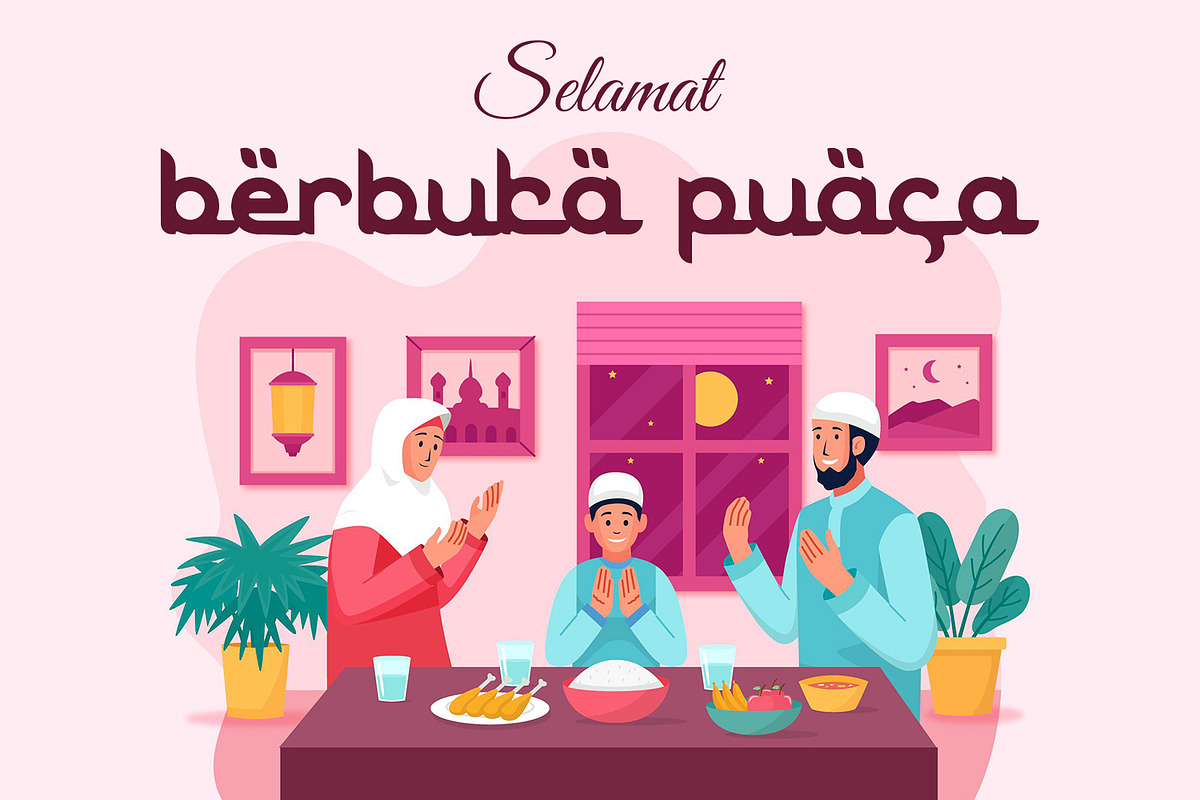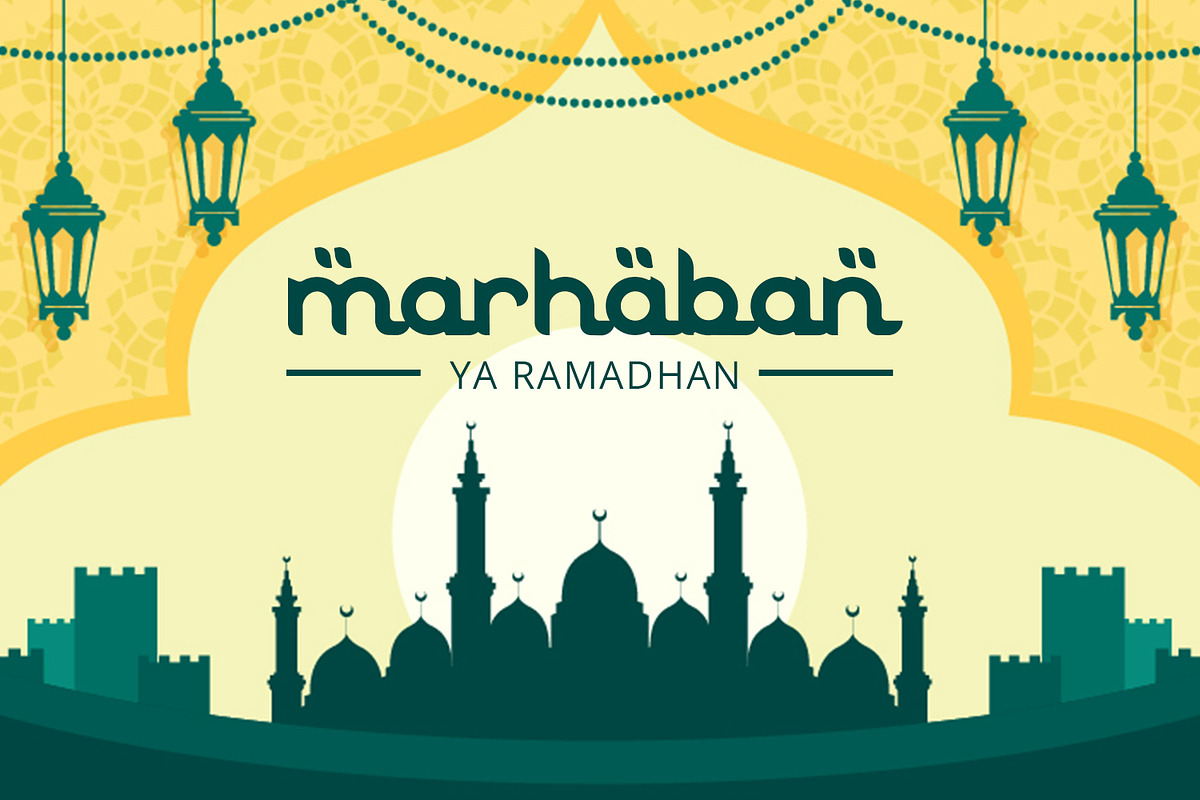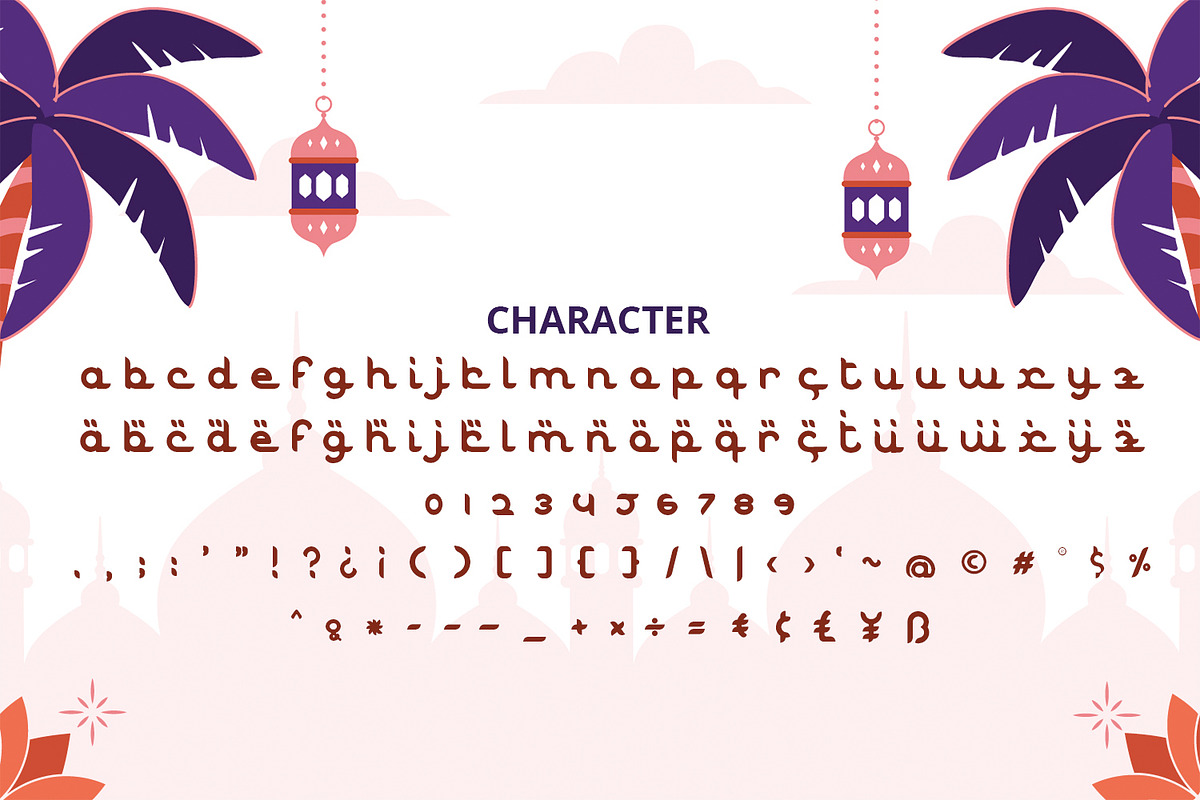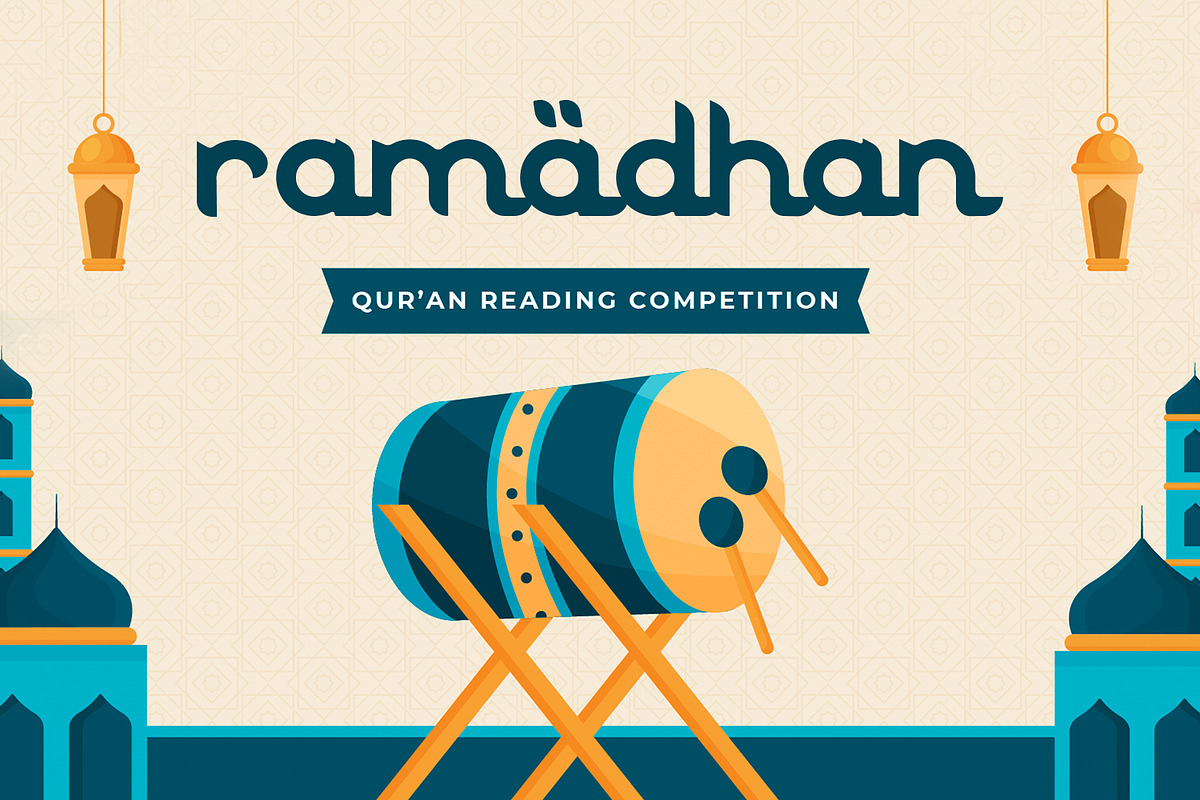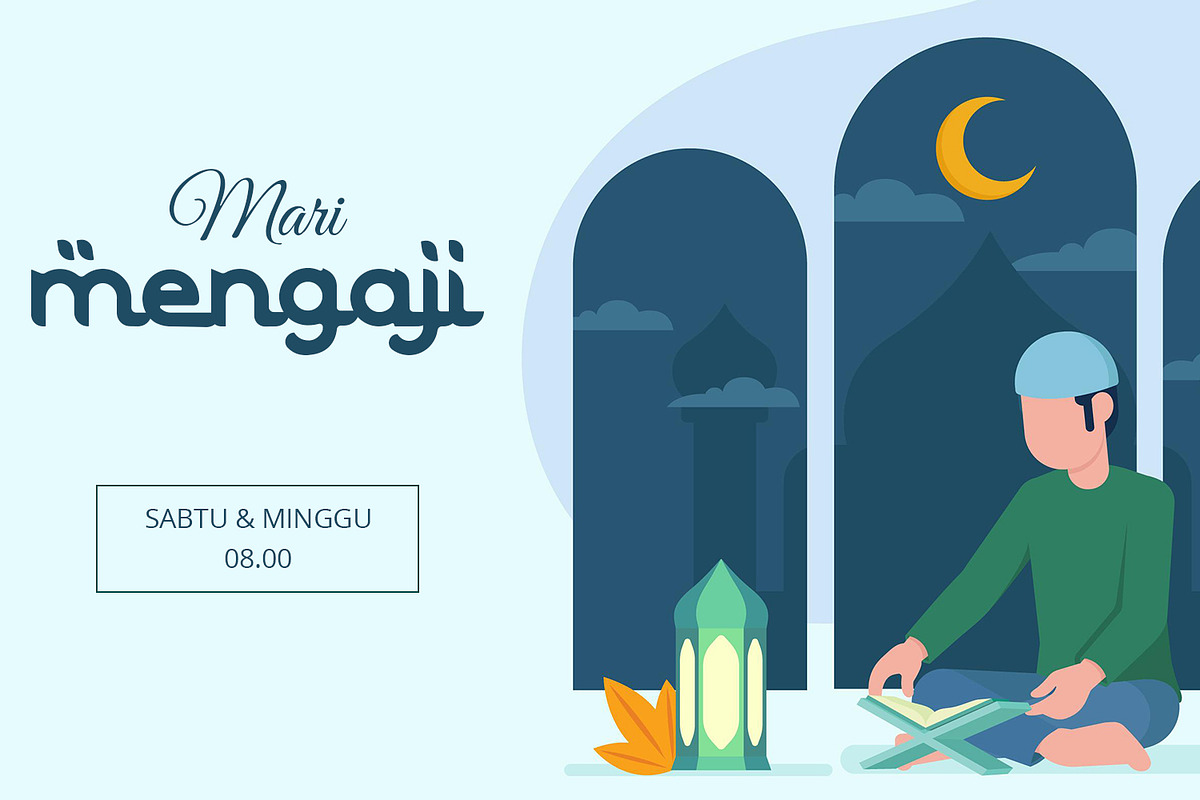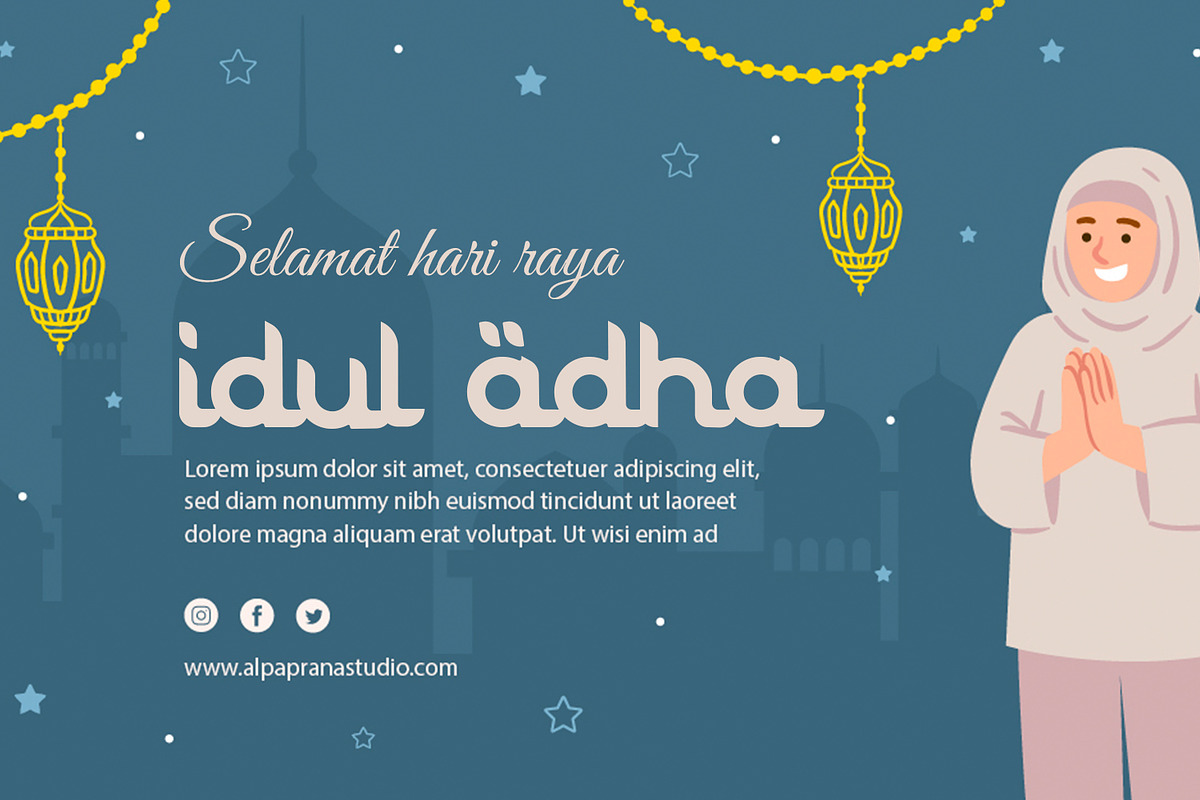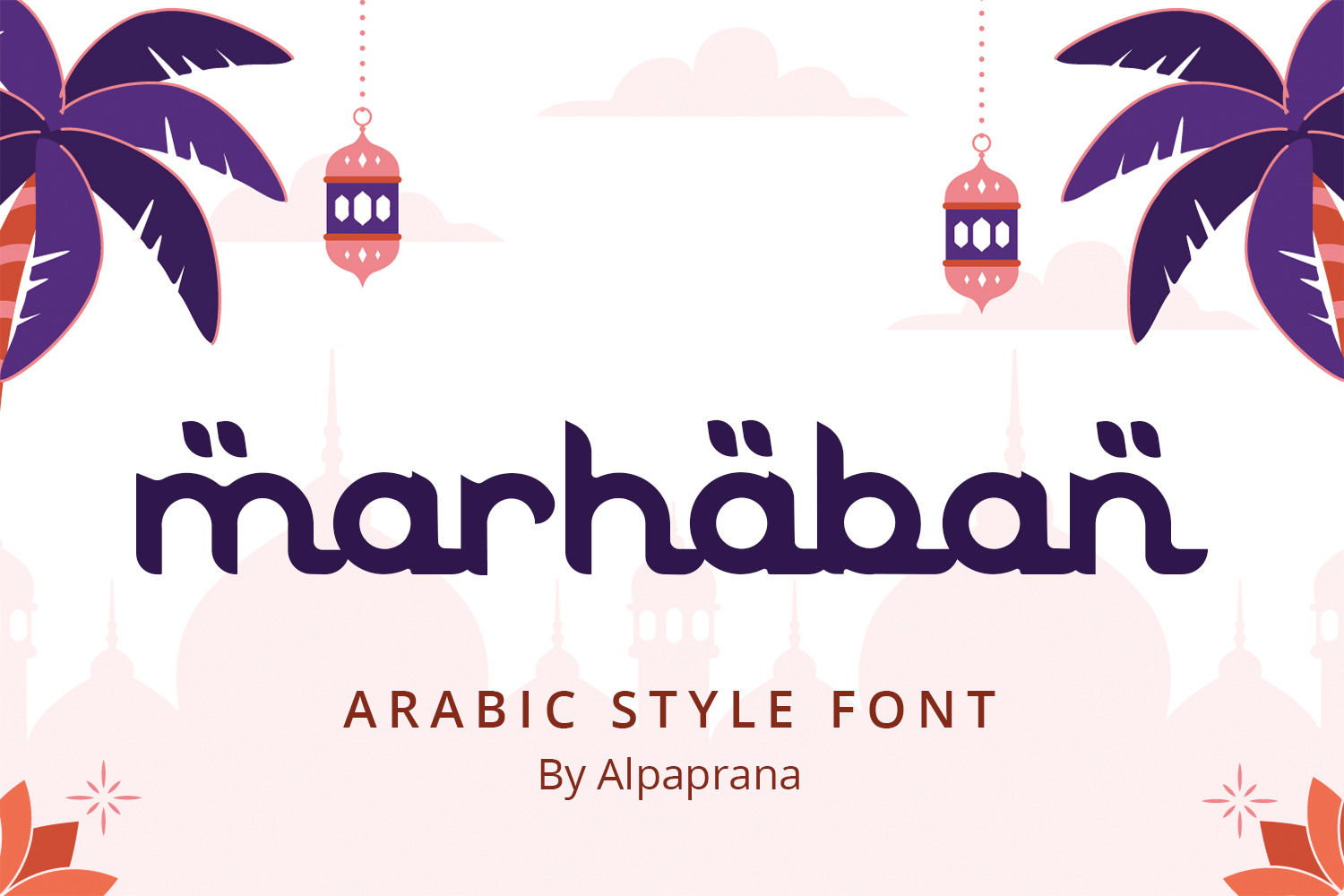
Marhaban - Arabic Style Font
Marhaban is a stunning arabic style font with authentic and casual feels. It will be perfectly used for Branding, Logo Design, Lettering, Logotype, Clothing, Poster, magazine, packaging, posters, shopping bags, t-shirts, book covers, photography, special events and other design project.